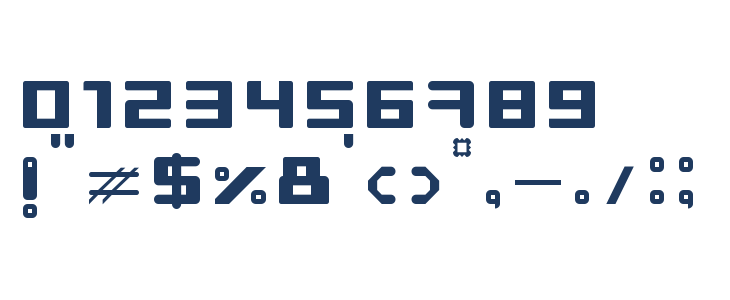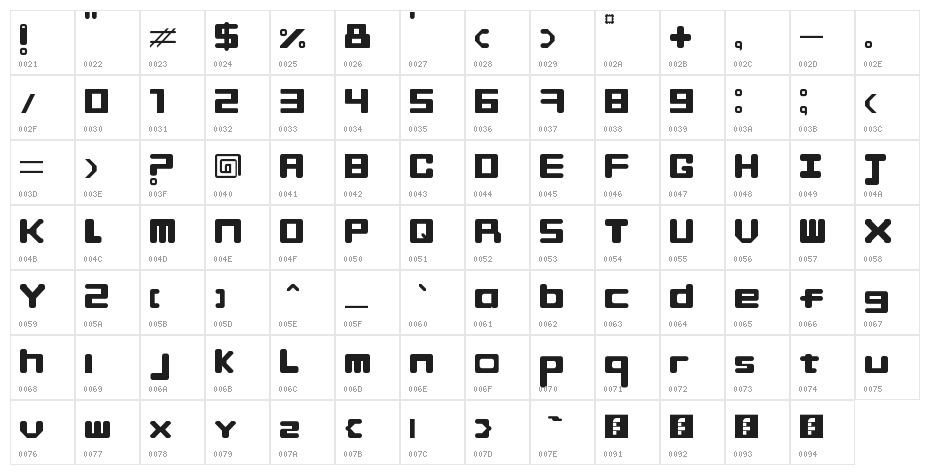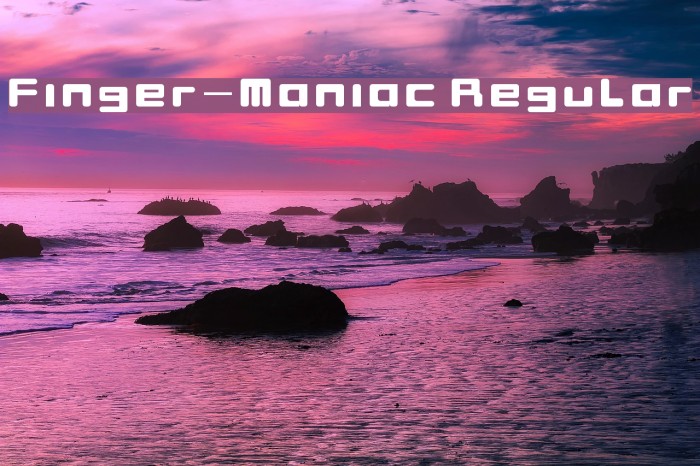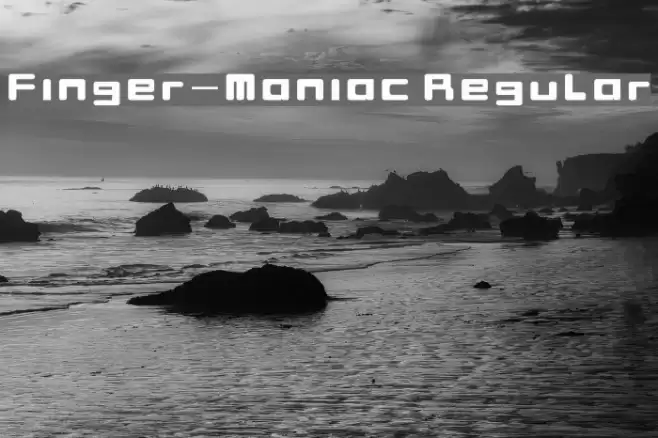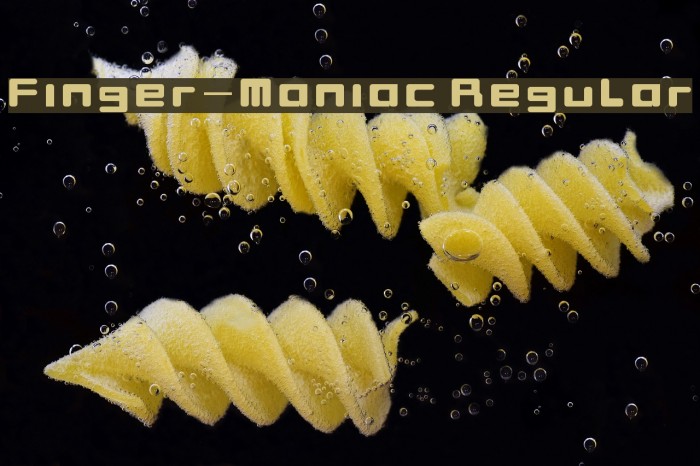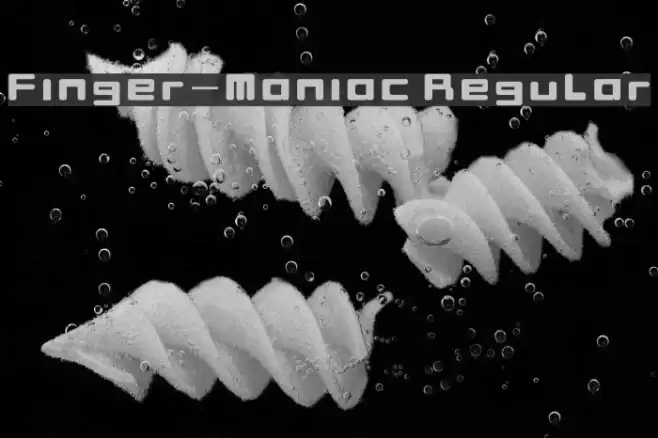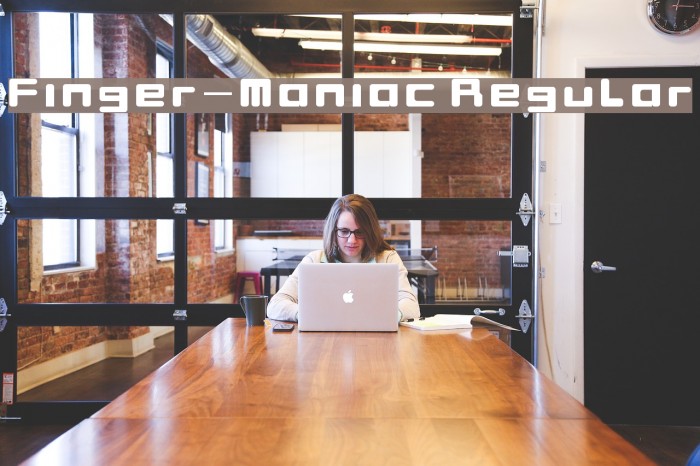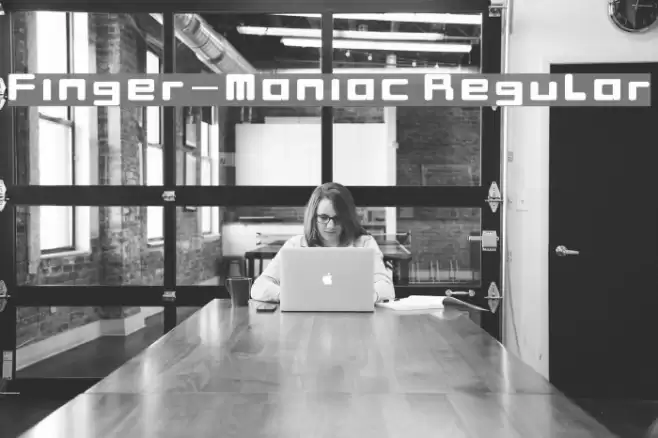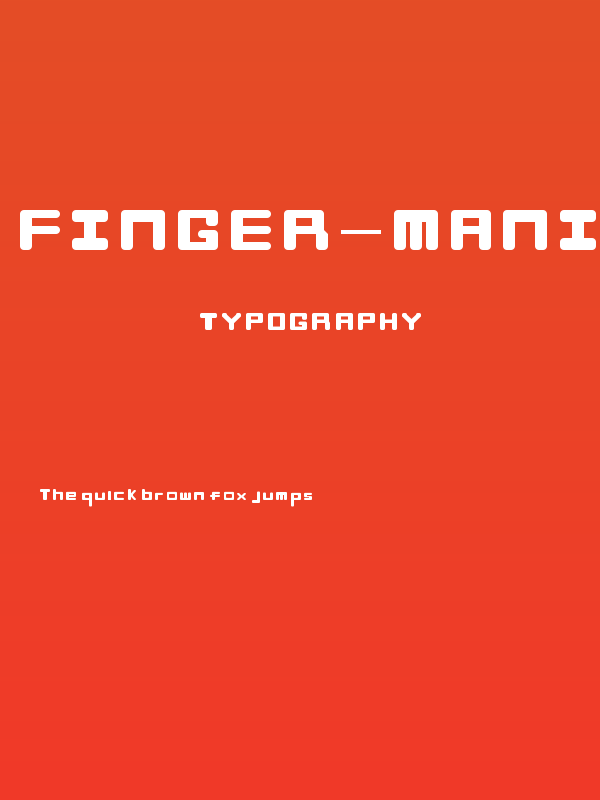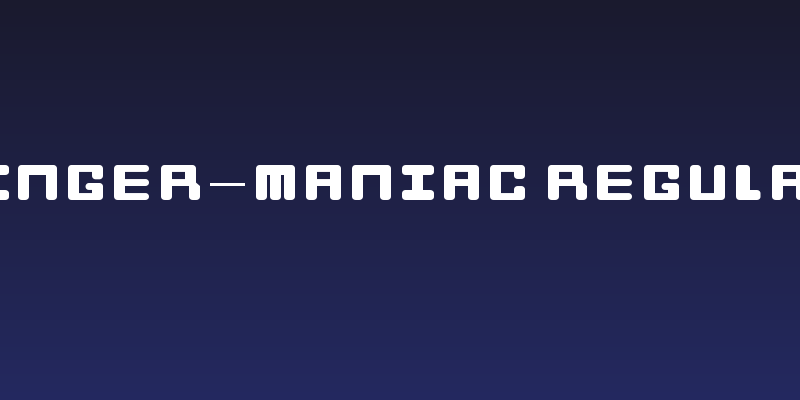
Finger-Maniac Regular Font
Finger-Maniac Regular Description
This font features a bold, geometric style with rounded edges, giving it a modern and playful appearance. The characters are uniformly thick, contributing to a strong visual impact. The uppercase and lowercase letters maintain a consistent width, while the numbers and special characters follow the same design principles, ensuring a cohesive look across all elements. The font's unique style makes it suitable for creative projects that require a distinctive and eye-catching typeface.
| Proposed Projects | Ideal for branding, posters, headlines, and any design project that requires a bold and modern typeface. |